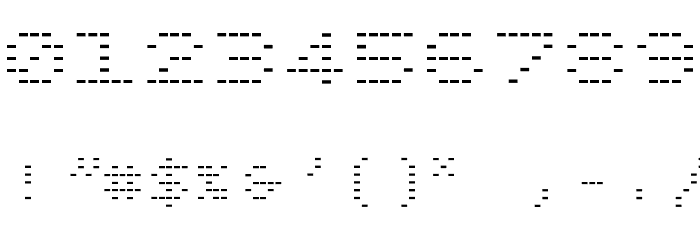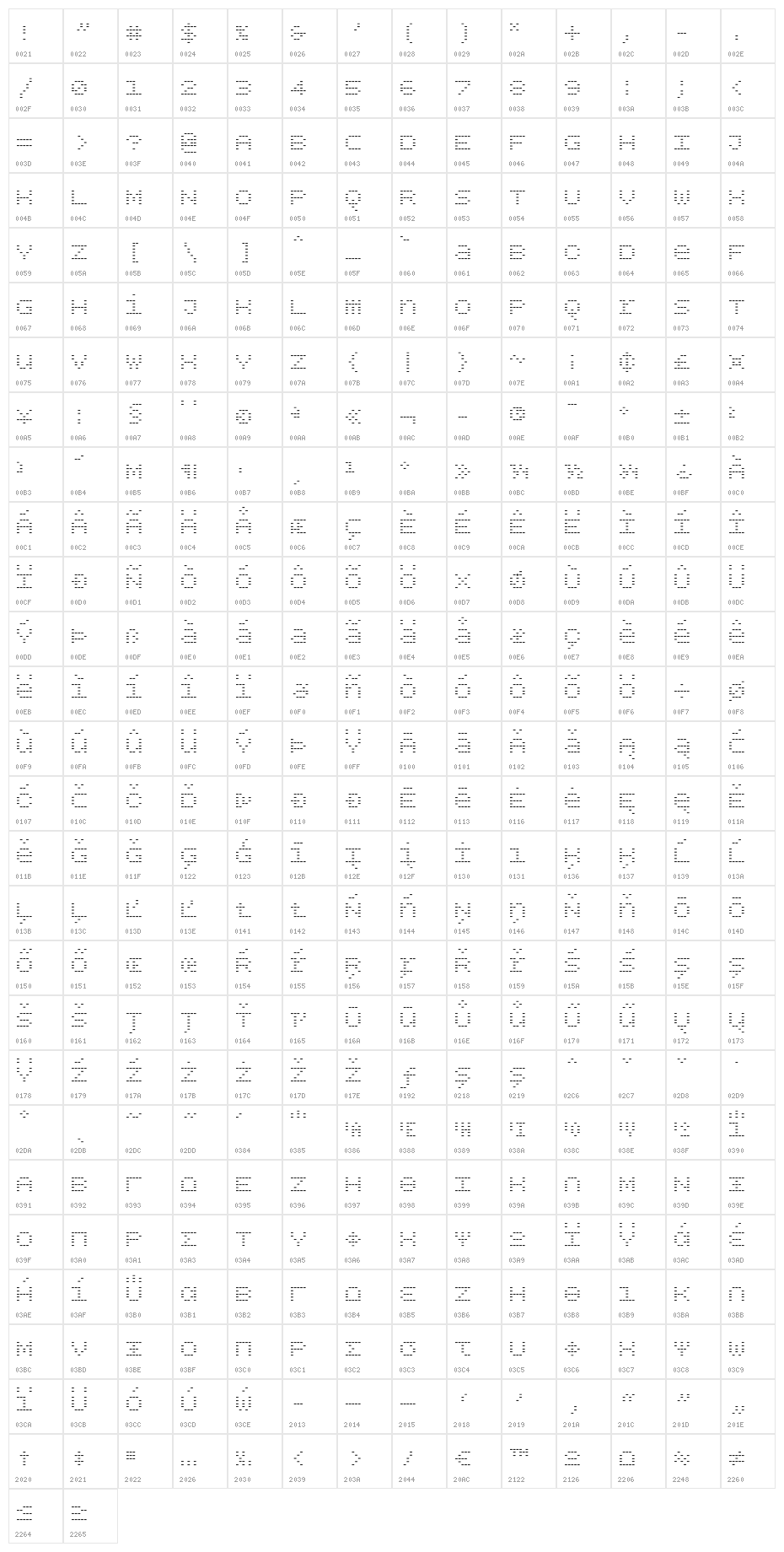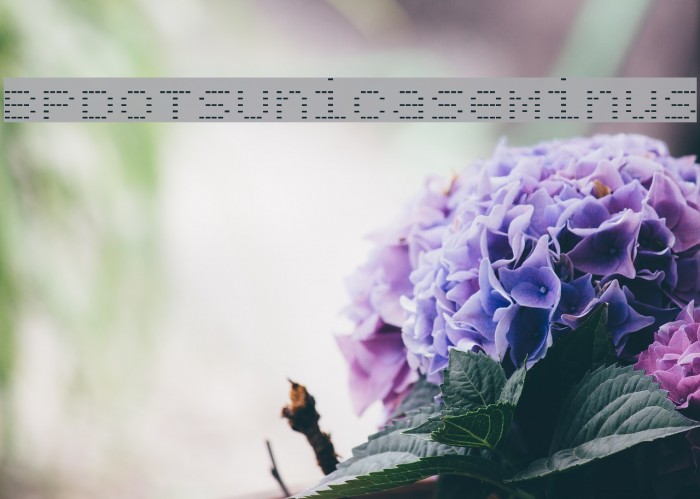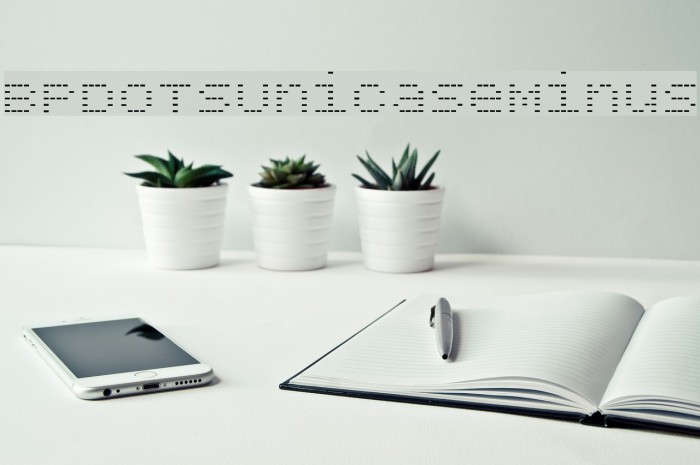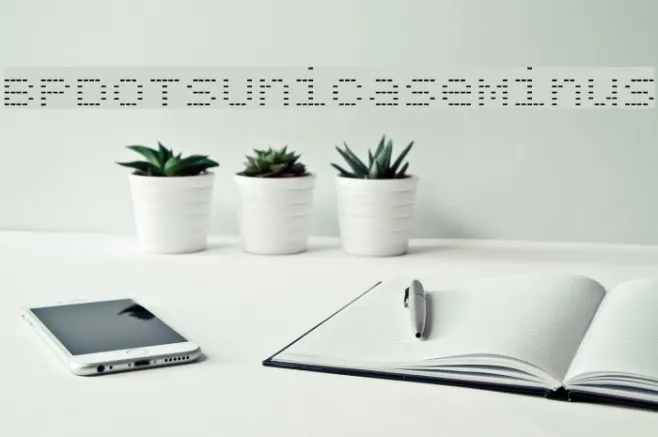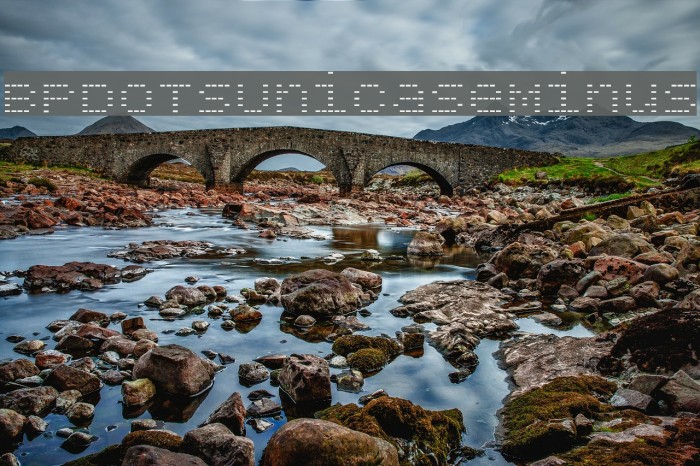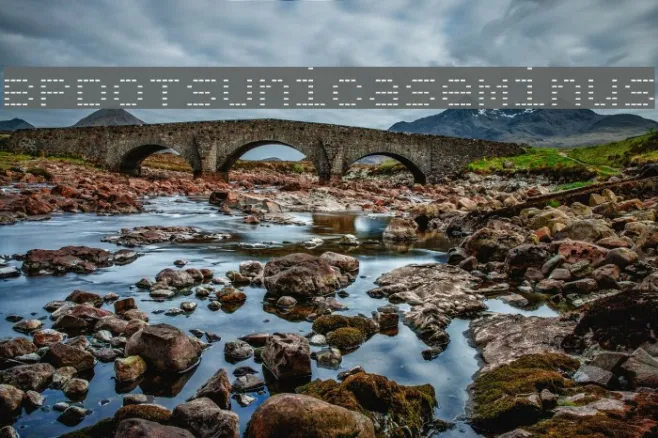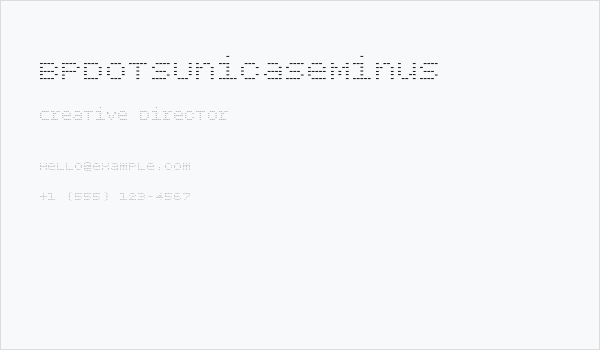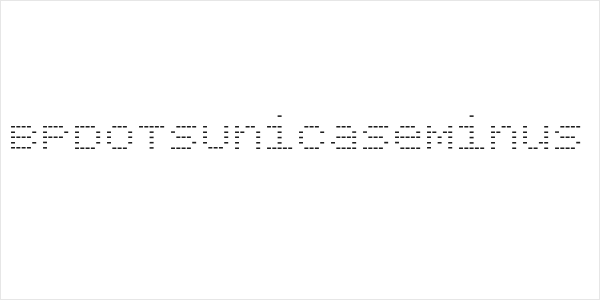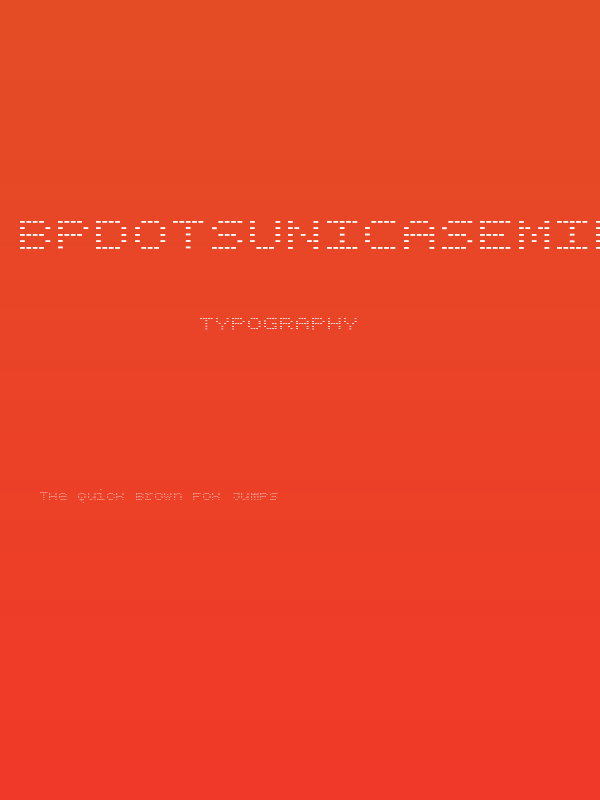
BPdotsUnicaseMinus Font
✎ Dotted
BPdotsUnicaseMinus Description
This font features a unique dotted design, where each character is formed by a series of evenly spaced dots. The style is consistent across uppercase and lowercase letters, as well as numbers and special characters. The uniformity of the dots gives it a modern, digital appearance, reminiscent of LED displays or dot matrix printers. The spacing between the dots is precise, creating a clean and organized look. This font stands out due to its unconventional approach, making it suitable for projects that require a futuristic or tech-inspired aesthetic.
| Use Case | Logos, Headlines, Digital displays |
| Proposed Projects | Ideal for digital displays, tech-themed designs, futuristic branding, and creative posters. |